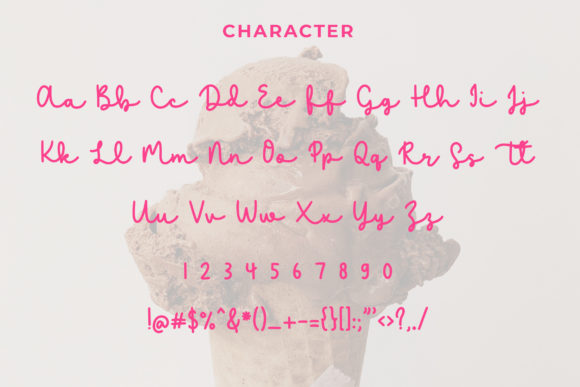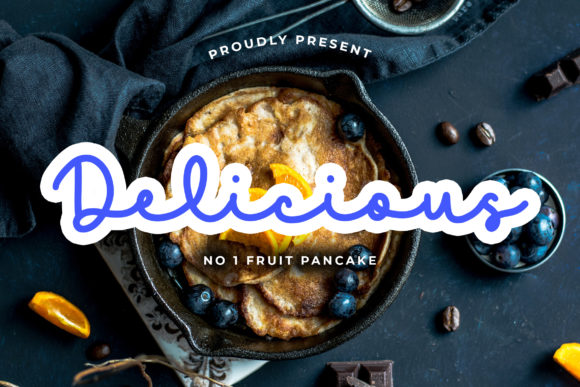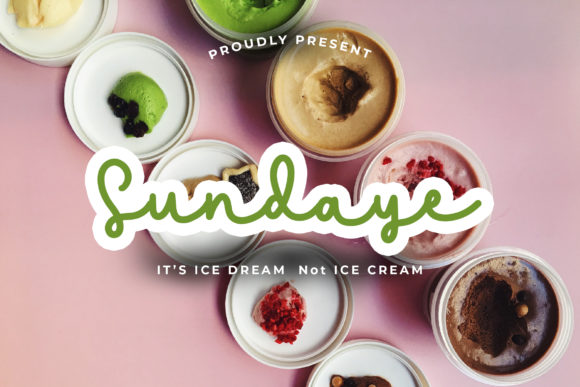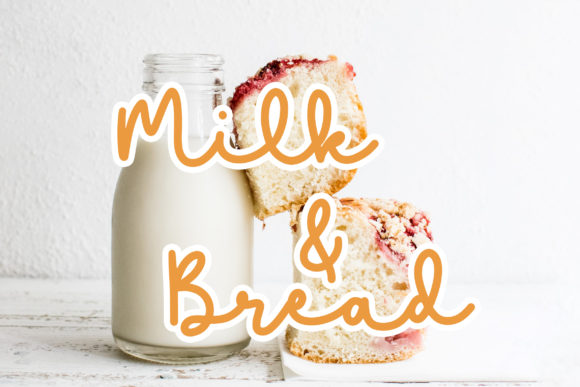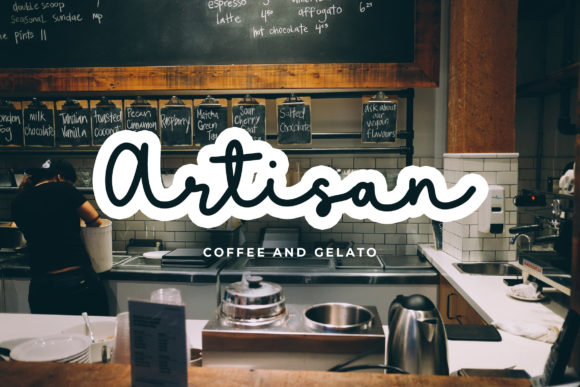
Introduction to Gelato Font
Gelato celebrates all thing sweet.
This playfully modern script is the ideal font for adding an artisan feel to any creative idea .
Key Features of Gelato Font
Why Choose Gelato Font?